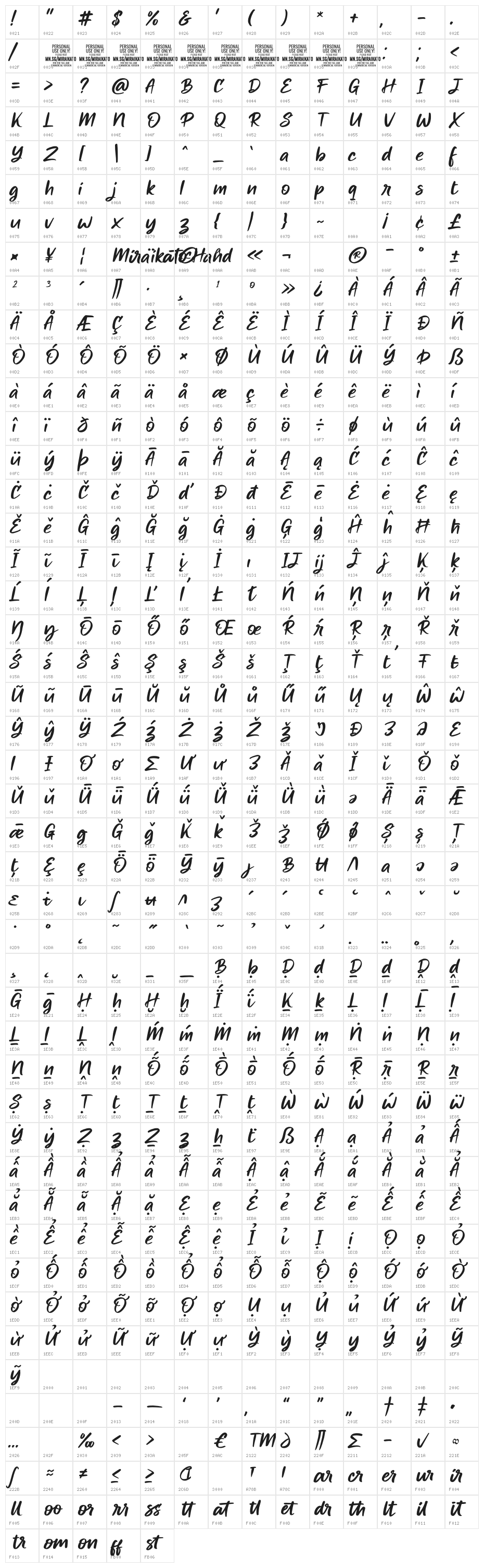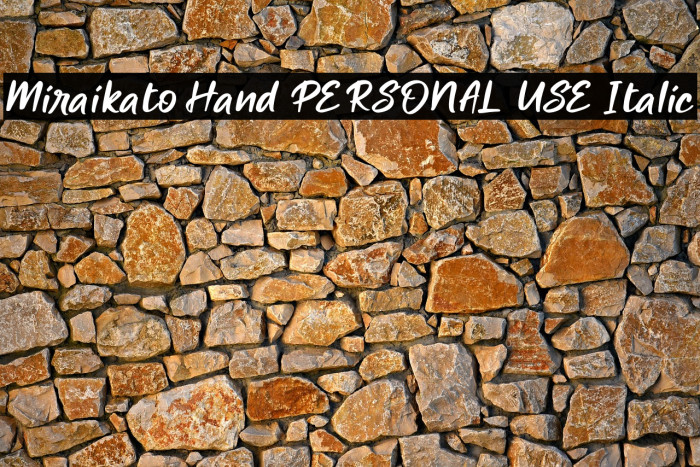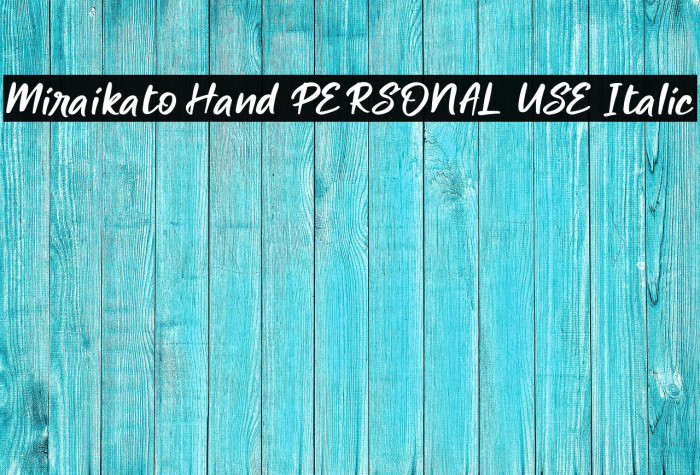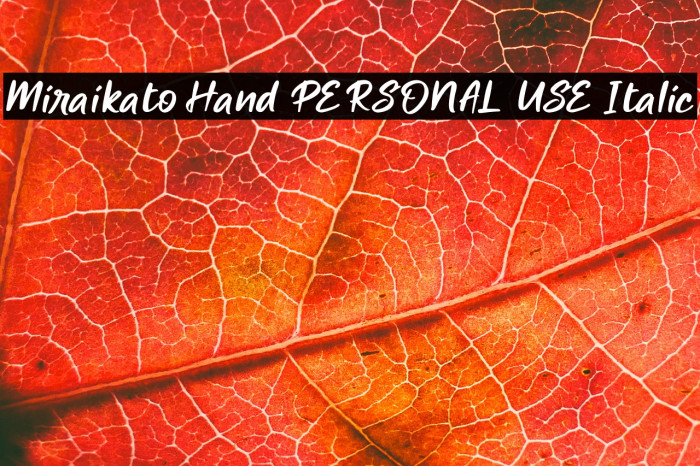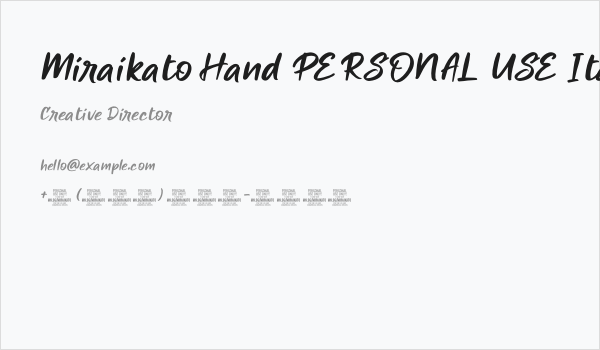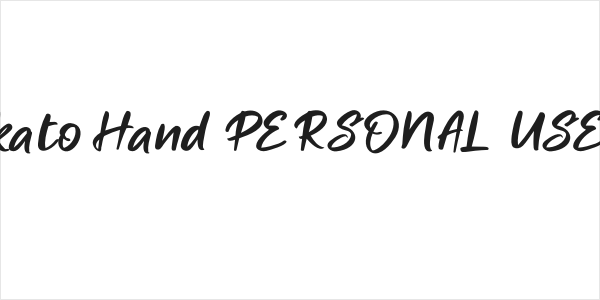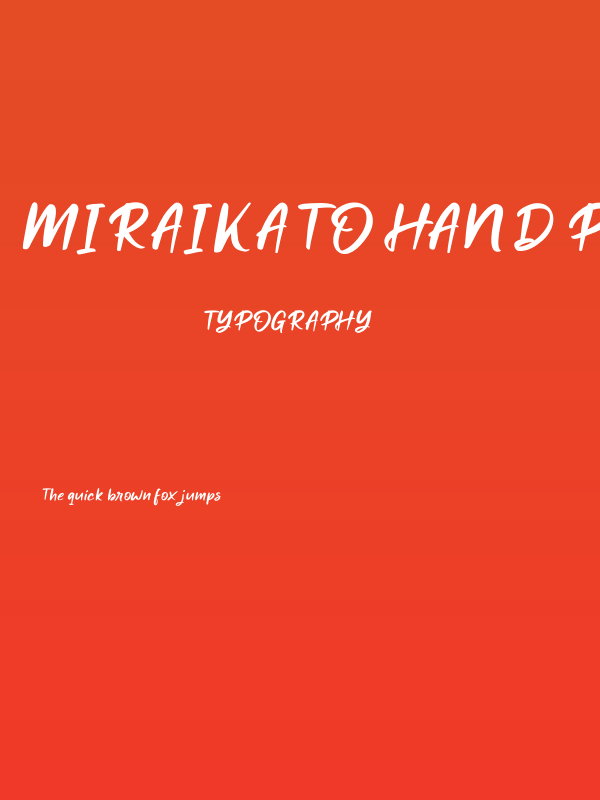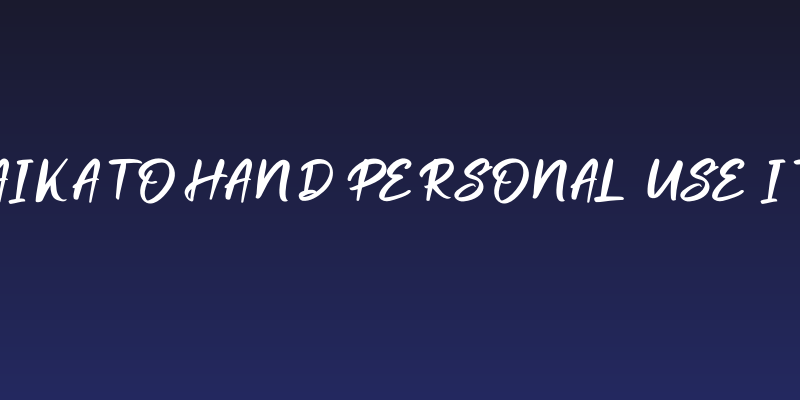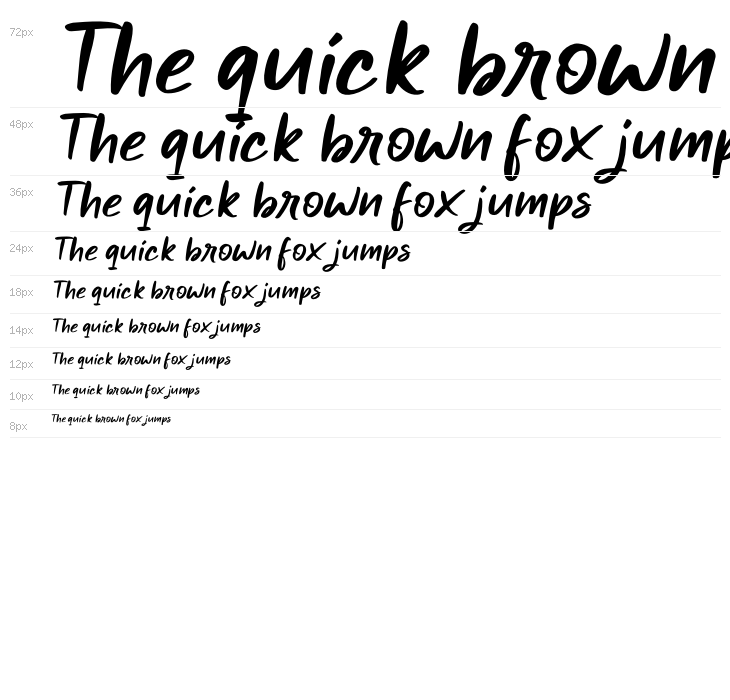
Miraikato Hand PERSONAL USE Italic Font
Miraikato Hand PERSONAL USE Italic Description
This font features a dynamic and expressive handwritten style with a smooth, flowing appearance. The characters are slightly slanted, giving an italicized effect that enhances its casual and artistic feel. The strokes are bold and consistent, with a medium contrast between thick and thin lines, adding to its legibility and visual appeal. The uppercase and lowercase letters are well-proportioned, maintaining a harmonious balance throughout the alphabet. Special characters and numbers are crafted with the same attention to detail, ensuring versatility in various design contexts.
Use CaseLogos, Headlines, Invitations
Proposed ProjectsIdeal for creative projects such as greeting cards, invitations, logos, and social media graphics where a personal touch is desired.